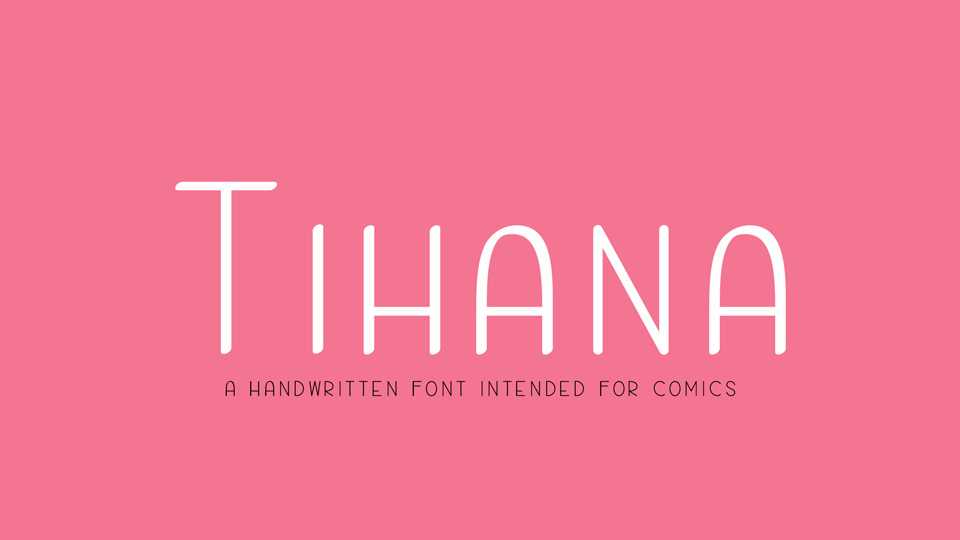
Download Tihana font, a simple and natural handwritten font generally intended for comics. Tihana is also perfect for DIY projects, notes, quotes, cards and more.
Designer: Vesko Radic